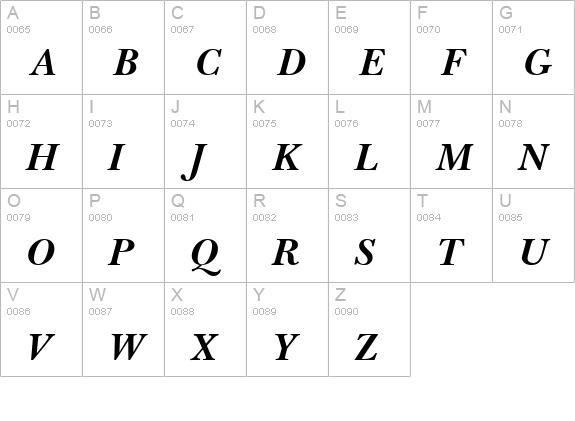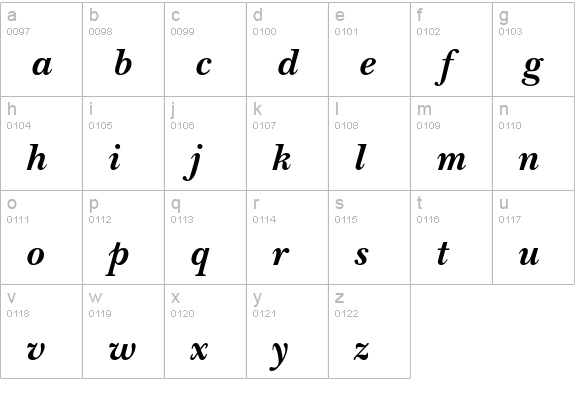
Nebraska Bold Italic Font Details
Nebraska Bold Italic is a strong, high-contrast, italic variant in the Nebraska typeface family \xE2\x80\x94 well suited to headlines, attention-grabbing titles, and strong calls-to-action.
Nebraska Bold Italic is a striking and modern font that exudes confidence and elegance. Its bold strokes and slanted italics create a dynamic and eye-catching look perfect for making a statement. This versatile typeface is ideal for headlines, branding, and any design project that requires a touch of sophistication. Best of all, Nebraska Bold Italic is available for free download at FontsMarket.com. You can easily add this stylish font to your collection and use it in both personal and commercial projects without any restrictions. Embrace the boldness and uniqueness of Nebraska Bold Italic and elevate your designs to new heights.